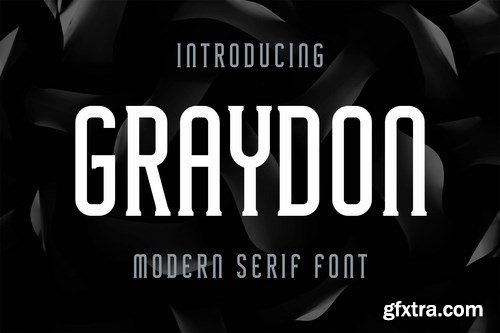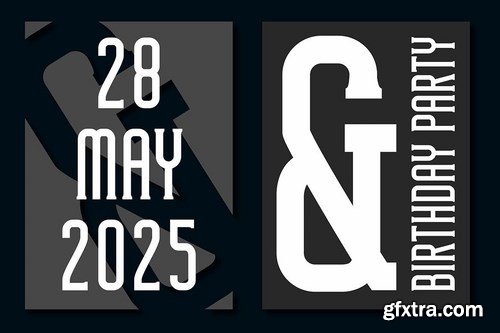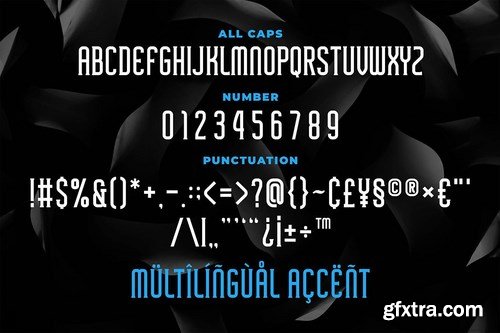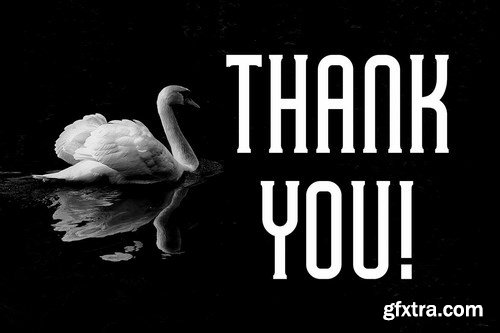
Introducing of our new product the name is Graydon Modern Serif Font. Graydon good for logotype, label, badge, headline, signature, packaging and any more.